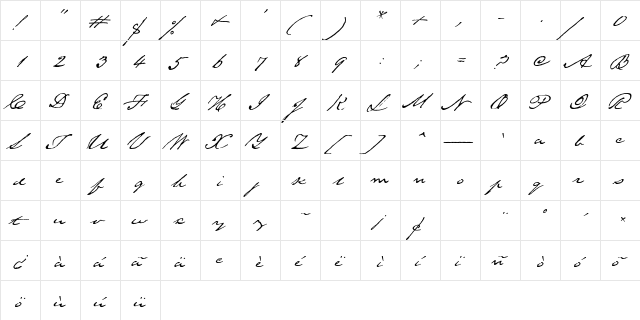
TexasHero Regular
Design Context for TexasHero Typeface
TexasHero is a composed and adaptable typeface that performs quietly and consistently across a wide range of design contexts.